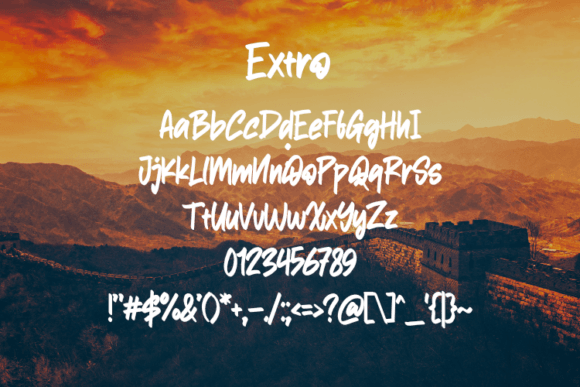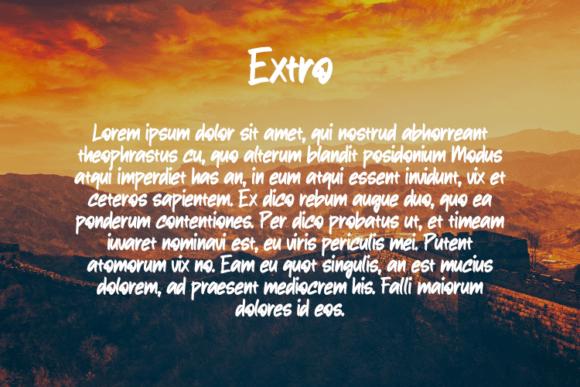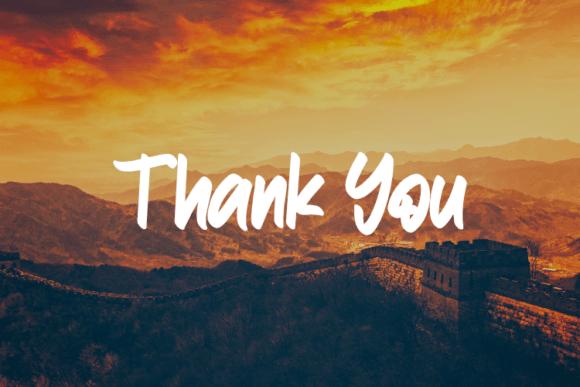
Introducing Extro Font: Elevate Your Designs with Elegance and Versatility
In the realm of design, typography plays a pivotal role in conveying messages, expressing creativity, and capturing the essence of a brand or product. For designers and crafters seeking a font that combines elegance with versatility, Extro Font emerges as an exceptional choice. This comprehensive guide delves into the world of Extro, exploring its features, benefits, and applications in apparel and product designs.
The Essence of Extro Font
Extro Font is a meticulously crafted typeface designed to breathe life into your designs. Whether you’re working on apparel, product labels, or any other creative project, Extro adds a unique charm that sets your work apart. Its elegant aesthetics make it an ideal pick for a range of designs, from casual wear like t-shirts to more formal product packaging.
Key Features of Extro Font
- Elegant Aesthetics: Extro boasts a sophisticated and stylish look that enhances the visual appeal of any design.
- Versatility: Perfect for a wide array of applications, including clothing, t-shirts, product labels, and more.
Applications of Extro Font
Apparel Design
For designers and crafters focusing on apparel, Extro Font offers a sophisticated touch. Its elegant letterforms make it perfect for:
- T-shirt designs
- Hoodie and sweatshirt graphics
- Custom caps and hats
- And more
Product Design
Extro’s versatility extends beyond apparel, making it an excellent choice for product design. Use it for:
- Product labels
- Packaging design
- Branding materials
- Marketing collateral
Why Choose Extro Font?
Choosing Extro Font for your design projects comes with numerous benefits:
- Unique Charm: Adds an enchanting touch to your designs, making them stand out.
- Impeccable Typography: Ensures that your message is conveyed with elegance and clarity.
Extro Font is a game-changer for designers and crafters looking to elevate their designs with elegance and versatility. Its wide range of applications, combined with its ease of use and compatibility, makes it an invaluable asset in the world of design. Immerse yourself in the creative possibilities with Extro Font and shape every creation with impeccable typography.